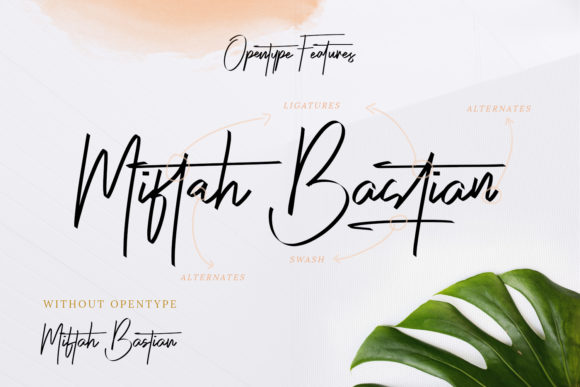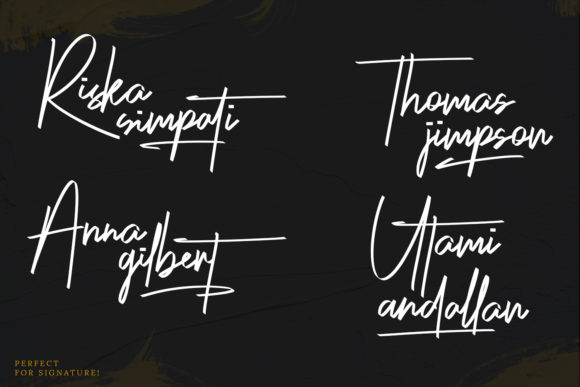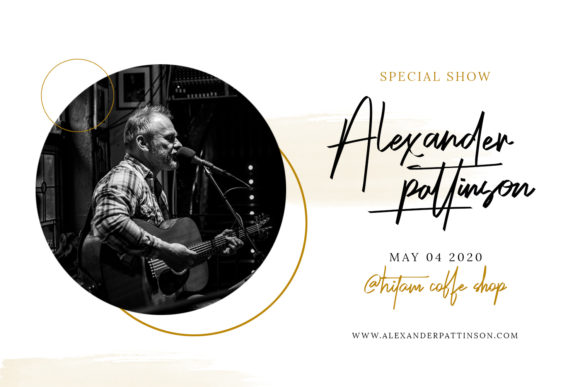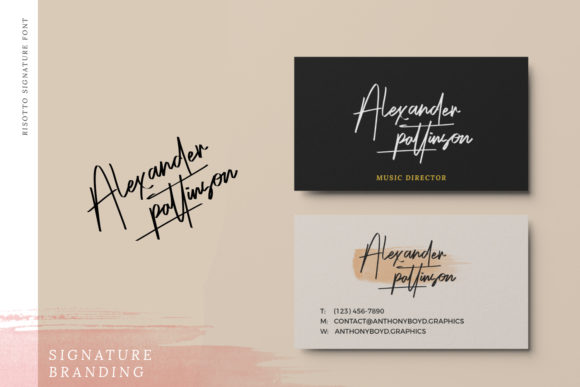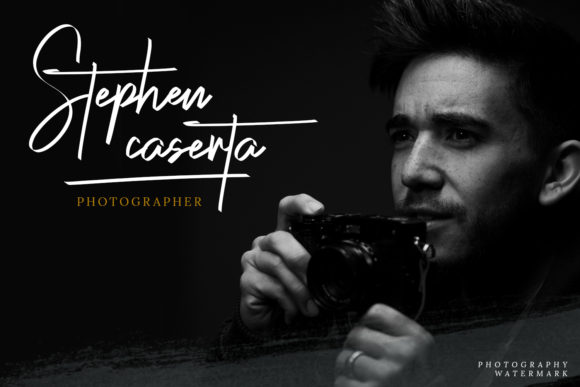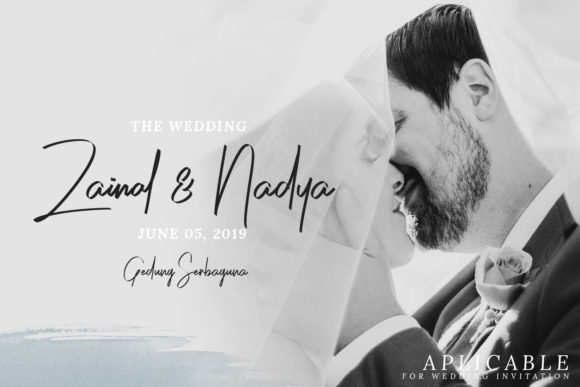
Introduction to Risotto Font Font
Fonts play a crucial role in design, and the Risotto Font font is a typeface that brings both character and versatility to any project. Whether you’re working on a branding project, a website, or a print design, the Risotto Font font offers a unique style that can elevate your work.
Risotto is a bold and powerful script with a contemporary look.
It will add an authentic twist on any creative idea .
Key Features of Risotto Font Font
Why Choose Risotto Font Font?
The Risotto Font font is more than just a typeface – it’s a design tool that helps you communicate your message with style and clarity. Its unique character set and versatile design make it suitable for a wide range of applications, from elegant invitations to bold headlines.
With its carefully crafted letterforms and balanced proportions, the Risotto Font font ensures readability and visual appeal across all mediums.
What makes Risotto Font font special?
The Risotto Font font stands out with its unique design, exceptional readability, and versatility across various design applications.